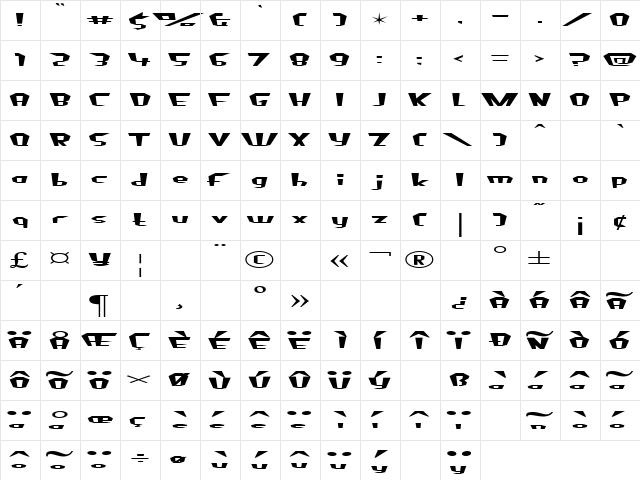
Fluoride Beings Regular
Design Context for Fluoride Beings Typeface
Fluoride Beings is a composed and adaptable typeface that performs quietly and consistently across a wide range of design contexts.